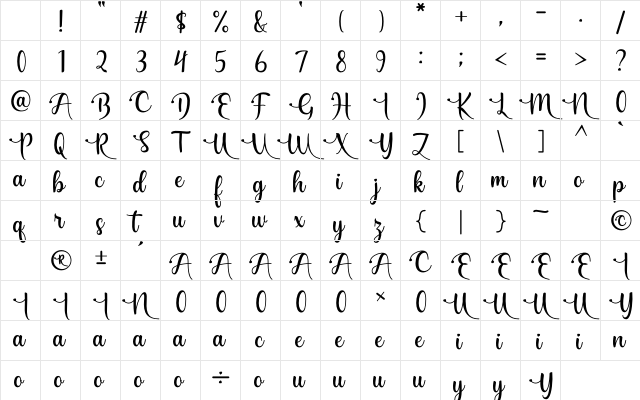
Complete Byebye Honey Regular glyph index. Displaying only characters natively supported by Byebye Honey Regular font.
Byebye Honey is a composed and adaptable typeface that performs quietly and consistently across a wide range of design contexts.